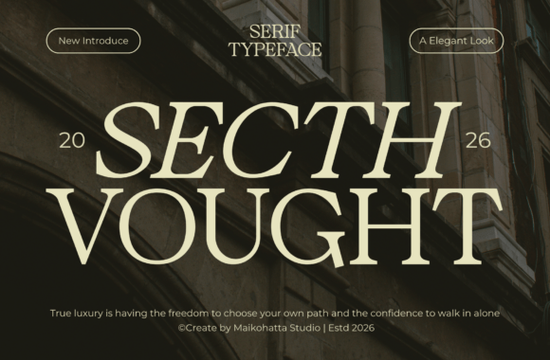
If you're looking for a serif font that feels both classic and quietly confident something that works just as well on a boutique perfume bottle as it does in a wedding invitation suite Secth Vought Font is worth your attention. It’s not flashy or overly ornate, but it carries weight, balance, and a quiet sense of intention. Designed with luxury branding and editorial design in mind, it’s the kind of typeface that helps your work look considered, not cluttered.
What makes Secth Vought different from other serif fonts?
Many serif fonts lean heavily into either tradition (think 18th-century book typography) or modern minimalism (clean, almost geometric serifs). Secth Vought sits comfortably between them. Its letterforms have gentle curves and subtle contrast notice how the lowercase a and e open softly, while the uppercase T and L hold crisp, decisive terminals. That balance means it reads clearly at small sizes (like on product tags or business cards), yet still commands attention in headlines or logos.
It’s also carefully spaced and kerned not something every display serif prioritizes. That means less manual tweaking when you’re building mockups for clients or prepping files for print-on-demand services like Printful or Gelato. You’ll spend less time adjusting letter spacing and more time refining color, layout, or photography.
Where does it work best?
Because it’s built for elegance without excess, Secth Vought fits naturally into projects where tone matters as much as legibility:
- Fashion and beauty branding logos, lookbook headers, campaign banners
- Wedding stationery invitations, menus, signage (especially paired with soft textures or muted palettes)
- Premium packaging candles, skincare, artisanal food labels
- Editorial design magazine mastheads, pull quotes, feature titles
- Small business identity systems where you need one strong font to carry headlines, subheads, and short body text
It’s not intended for long paragraphs of body copy like most high-end serifs, it shines brightest in display use. For longer text, consider pairing it with a neutral sans-serif (like Inter or Montserrat) or a lighter serif companion.
How does it compare to similar fonts on Creative Fabrica?
If you’ve already explored serif options on Creative Fabrica, you might recognize the thoughtful craftsmanship in Secth Vought but its voice is distinct. Blades of Fortunes leans bolder and more dramatic, great for vintage-inspired posters or tattoo-style designs. Elora has a warmer, slightly calligraphic rhythm ideal for handcrafted brands or lifestyle blogs. And Behal offers tighter spacing and sharper angles, making it a strong choice for modern tech or architecture studios.
None of these are “better” they serve different moods and audiences. But if your goal is refined simplicity, not ornamentation, Secth Vought stands out for its consistency and restraint.
One thing to keep in mind: because it’s designed for elegance, avoid overloading it with effects drop shadows, heavy outlines, or extreme tracking adjustments can dull its subtlety. Let the letterforms breathe. If you’re using it for SVG cutting files, test a few letters first to confirm clean cut paths, especially on thinner strokes.